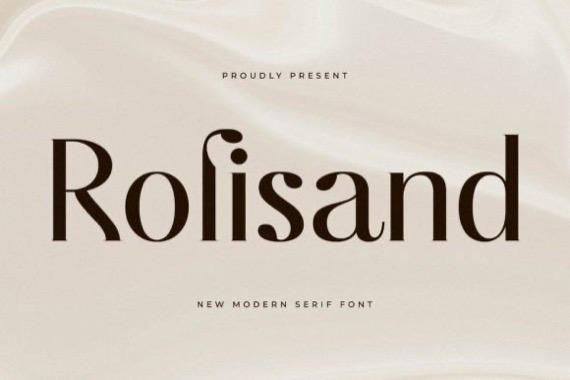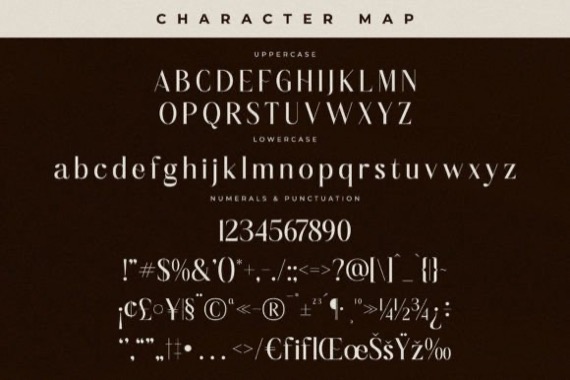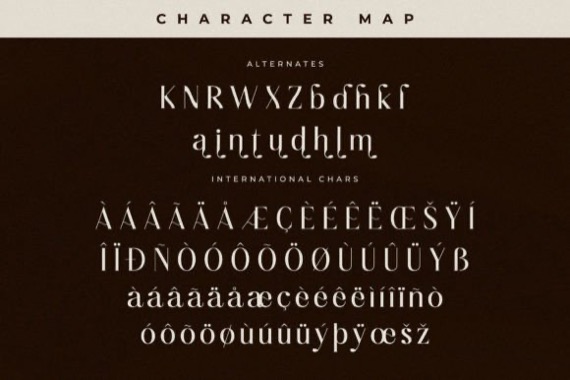
Proudly present Rolisand Font that was created and released by Storytype Studio. A serif modern and classic typeface that has own unique style & modern look. This typeface is perfect for an elegant & luxury logo, book or movie title design, fashion brand, magazine, clothes, lettering, quotes, and so much more.
Rolisand Serif Font